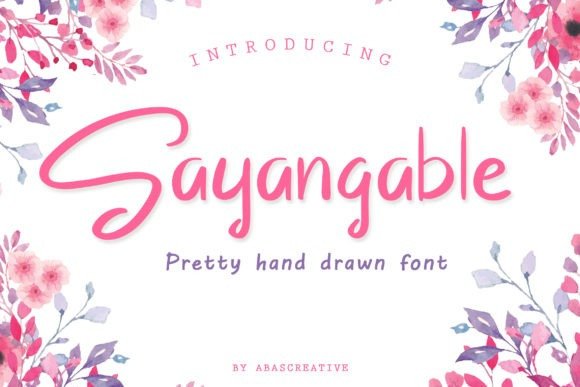
Sayangable Font
Sayangable Font is a fresh & modern script with a handmade calligraphy style, decorative characters So beautiful on invitation like greeting cards, branding materials, business cards, quotes, posters, and more!!